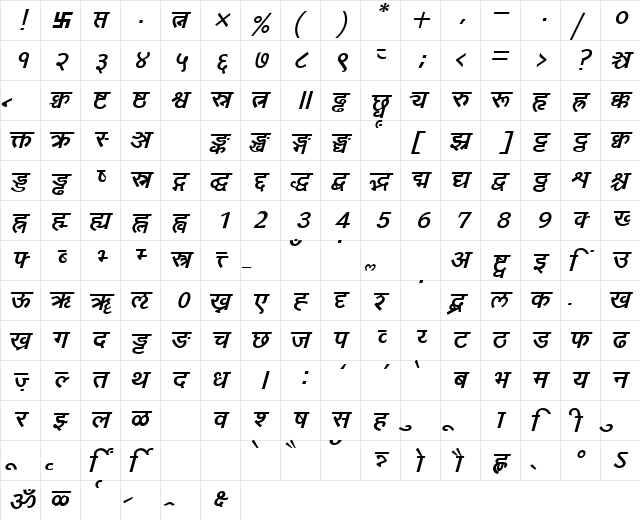
Yogeshweb Bold Italic Font Preview
Design Context for Yogeshweb Typeface
Yogeshweb offers clean, dependable letterforms without strong stylistic allegiance, making it a practical choice for designers who need flexibility. Its italic angle brings a sense of urgency and motion to the letterforms. The heavy weight commands attention and anchors typographic hierarchies.
Pro Tip: Try Yogeshweb for annotation and caption copy alongside an upright companion — the contrast in angle creates a dynamic but ordered typographic system.